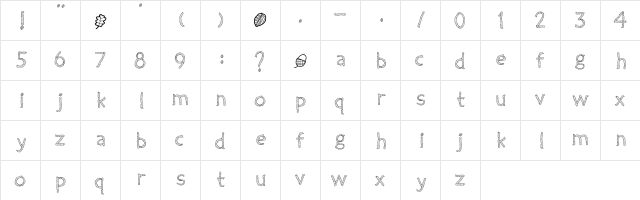
Twiggy Regular
Foundry: UK Oak Doors
Designer: UK Oak Doors
Complete Twiggy Regular glyph index. Displaying only characters natively supported by Twiggy Regular font.
Design Context for Twiggy
Twiggy is a composed and adaptable typeface that performs quietly and consistently across a wide range of design contexts.